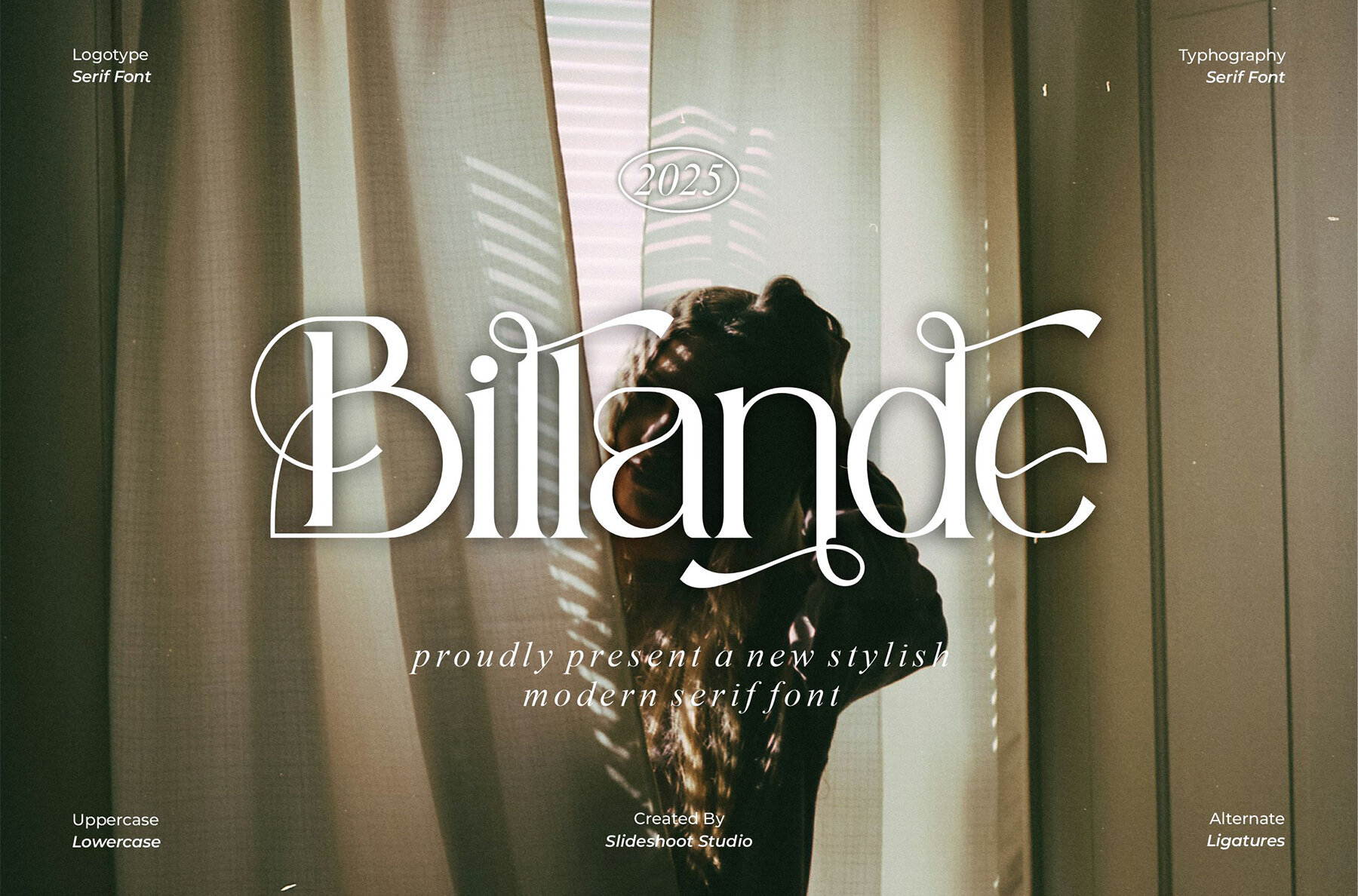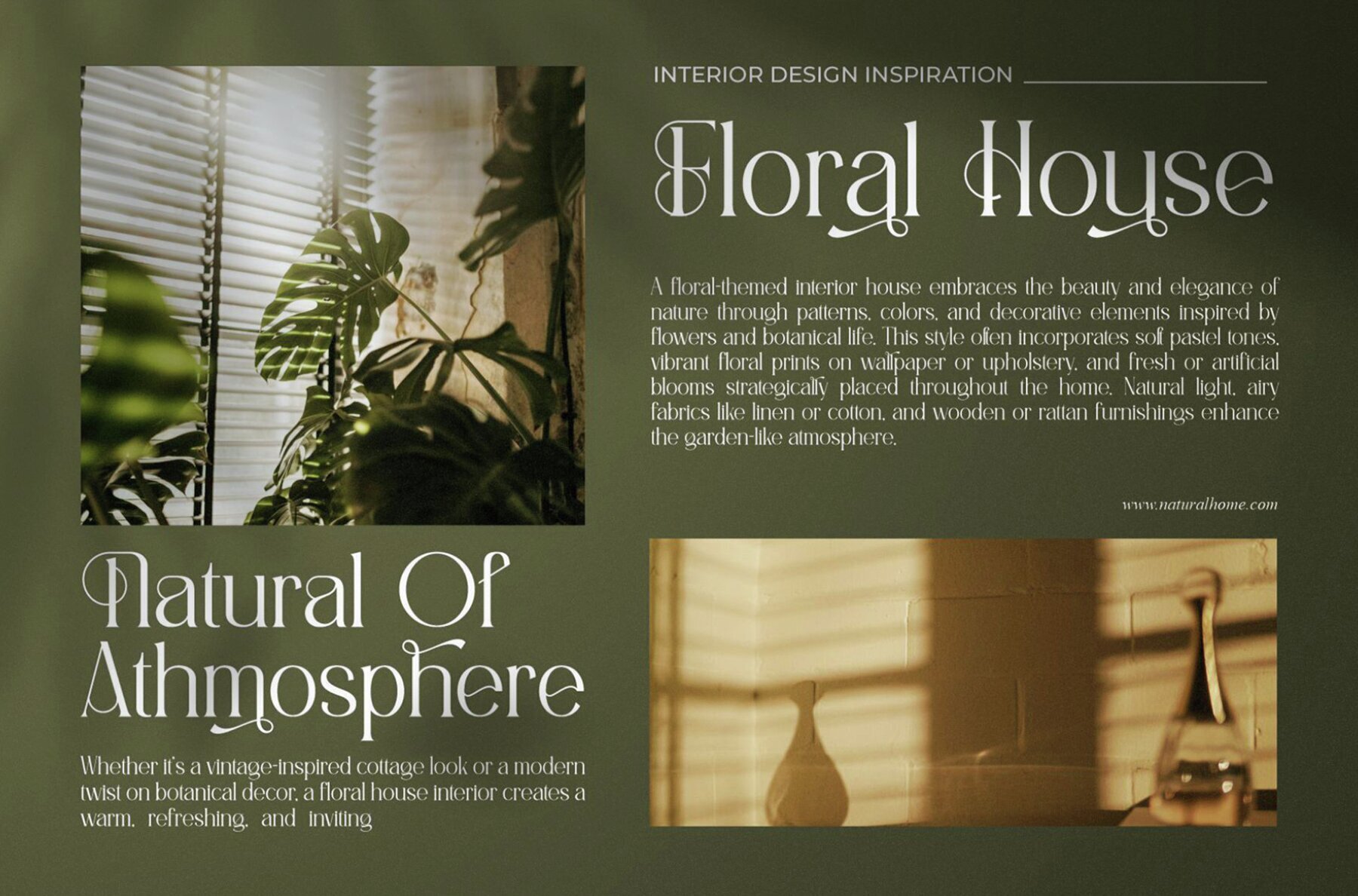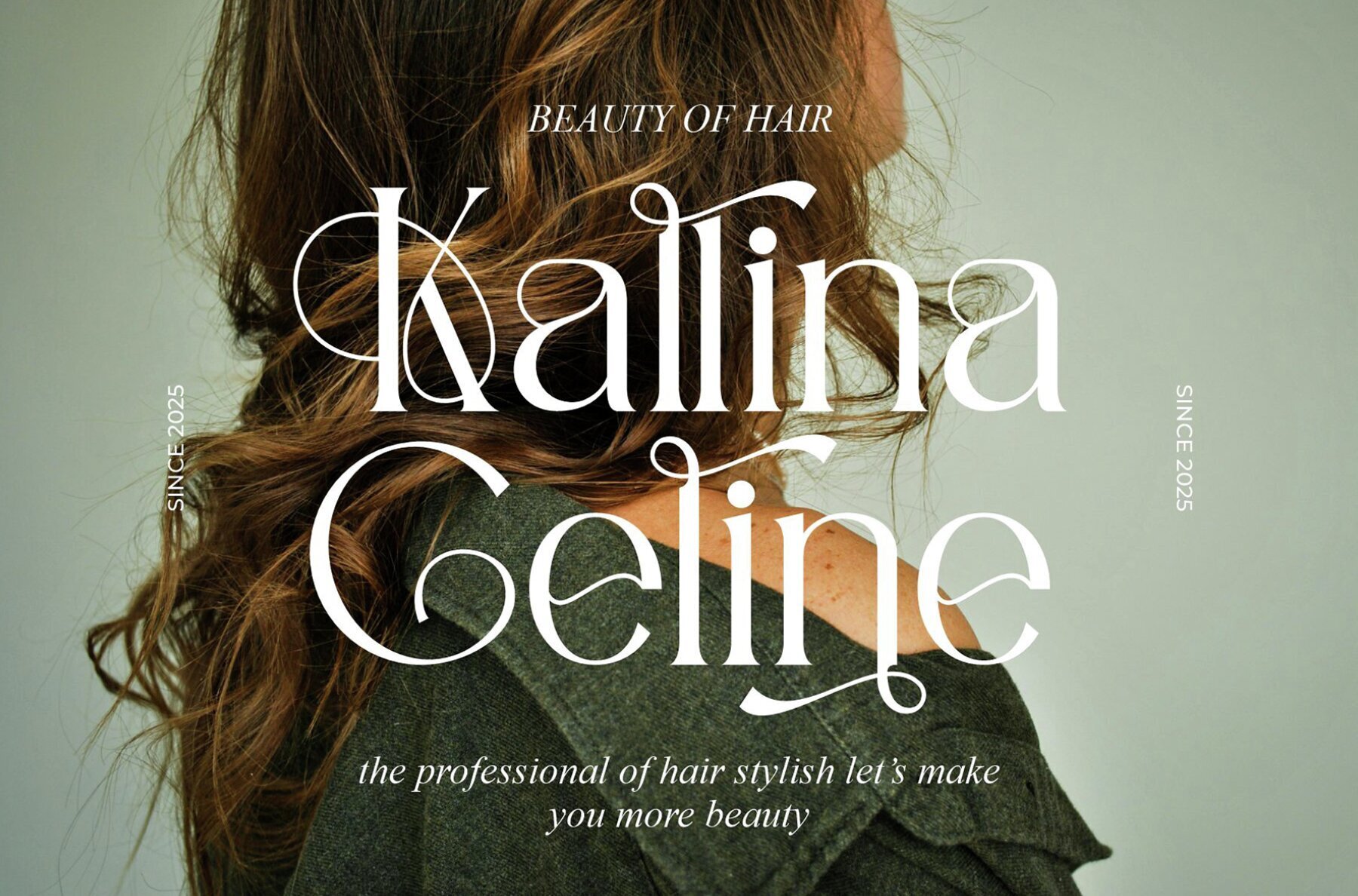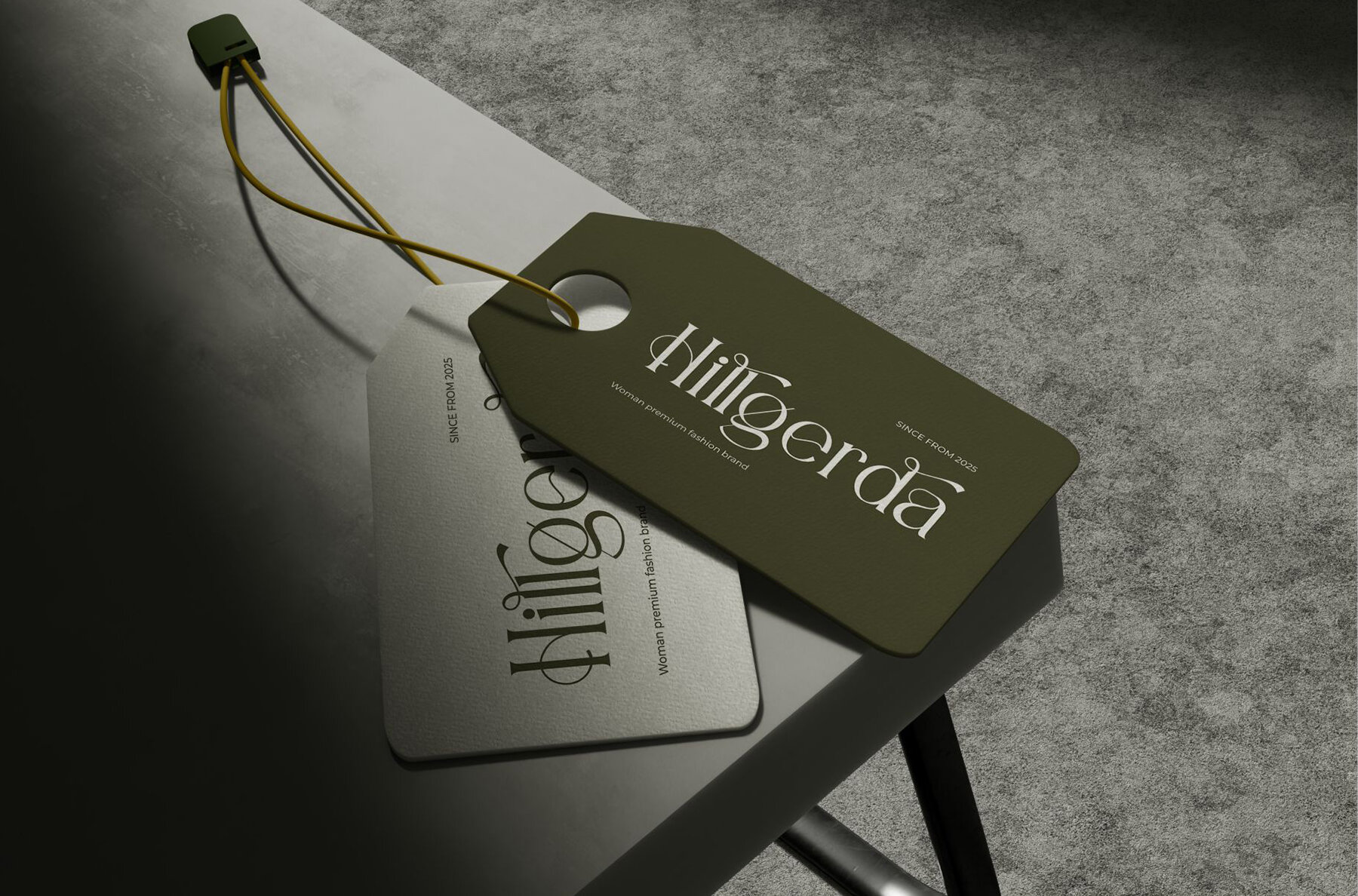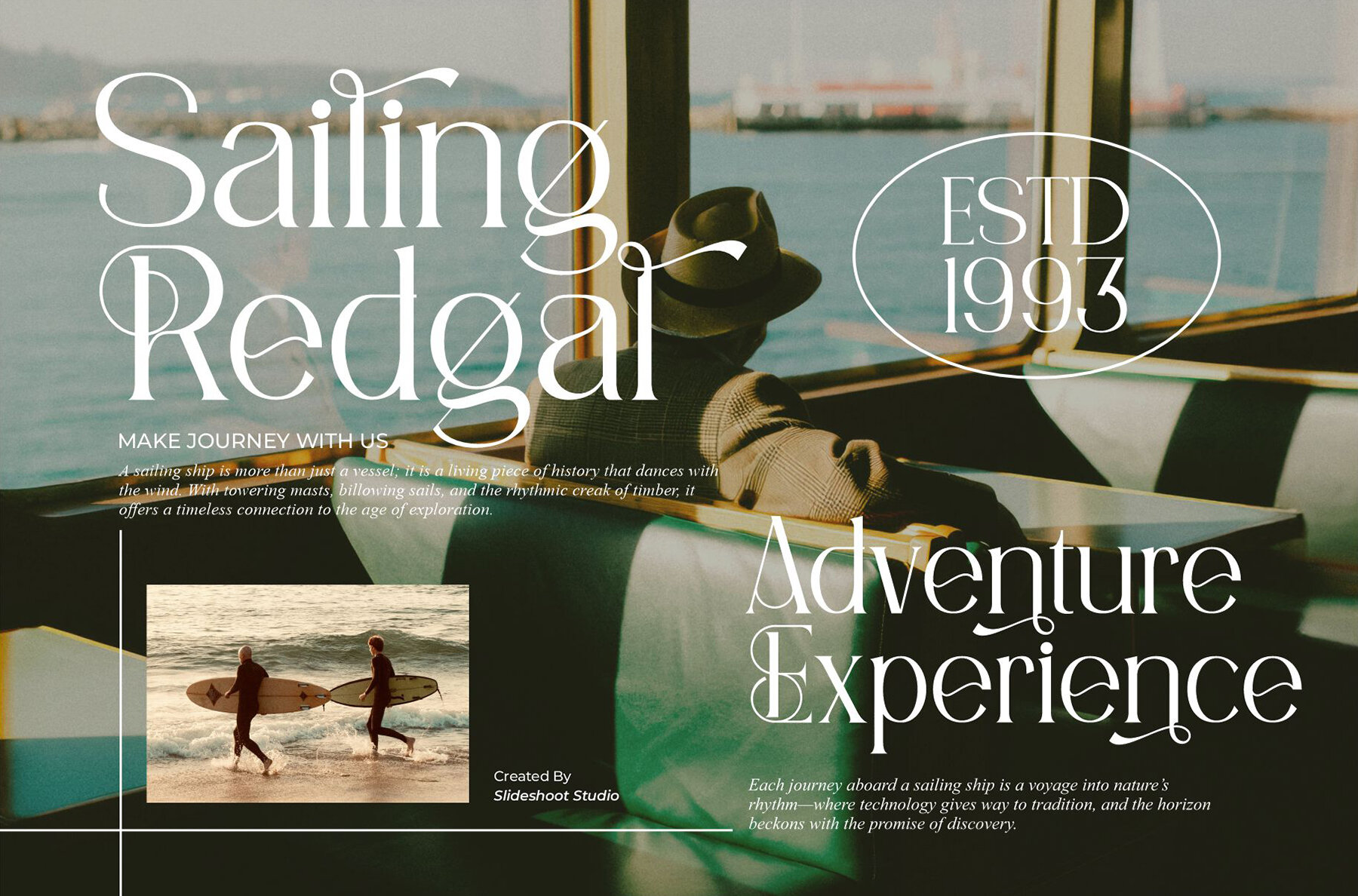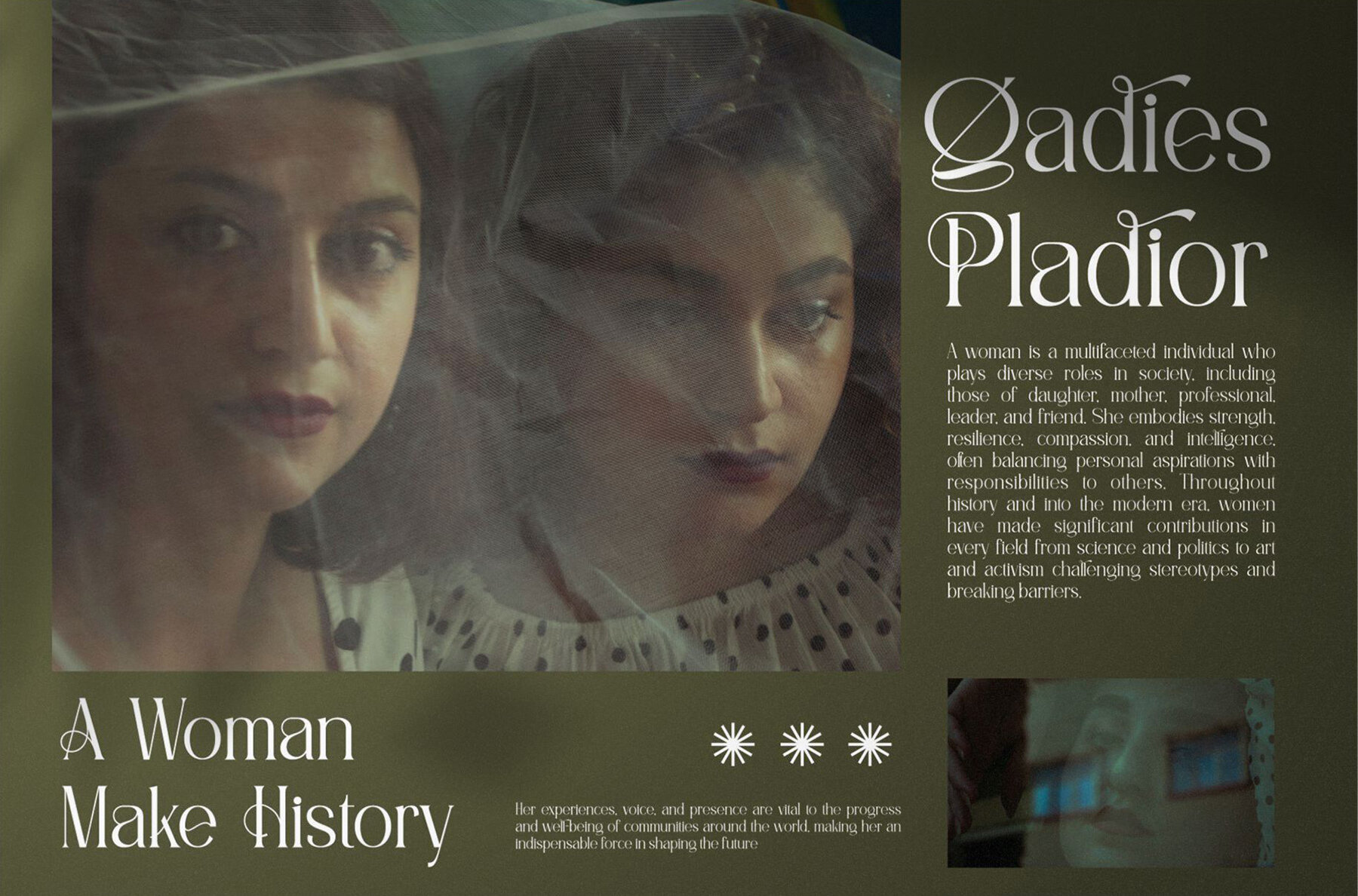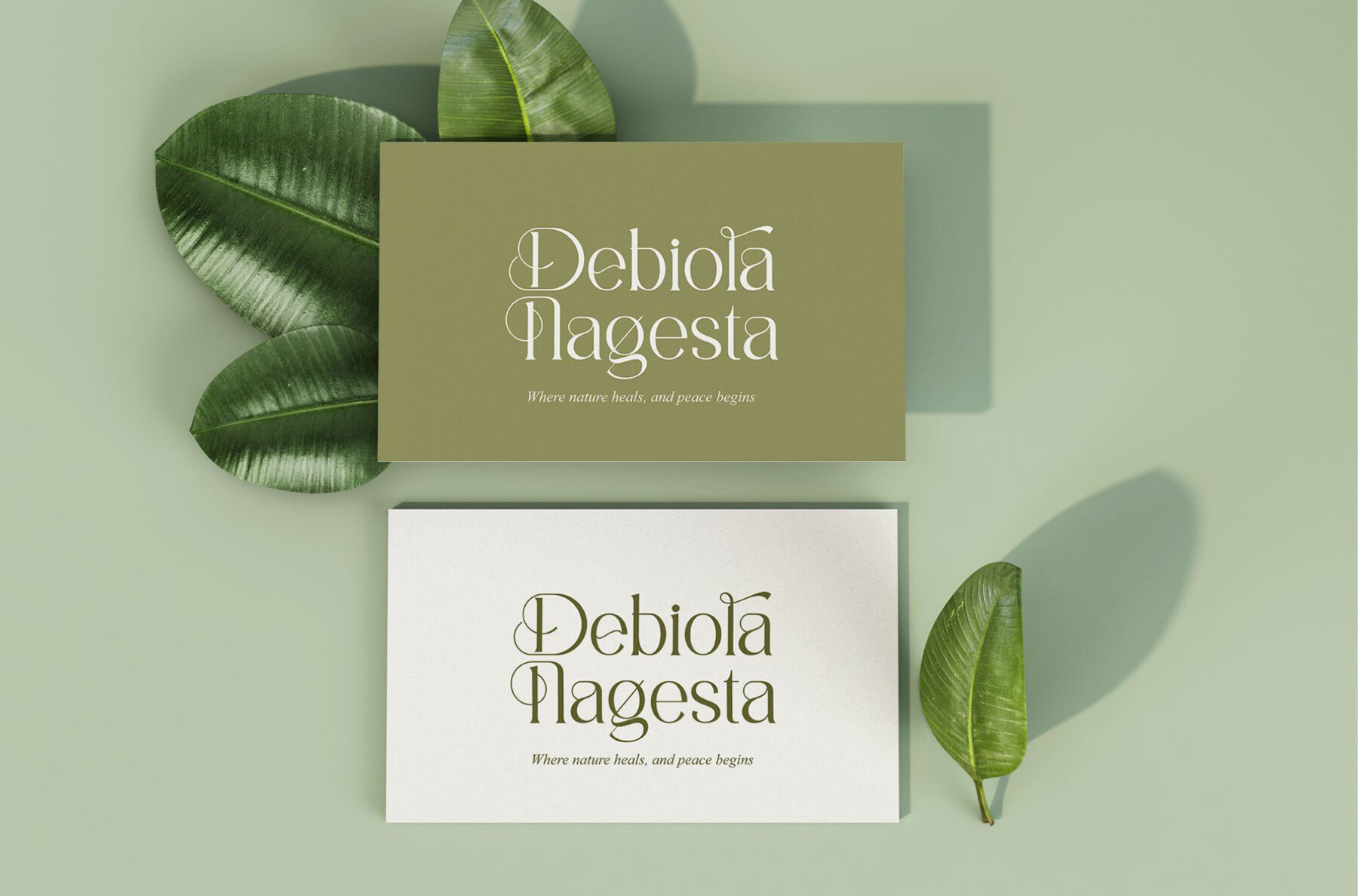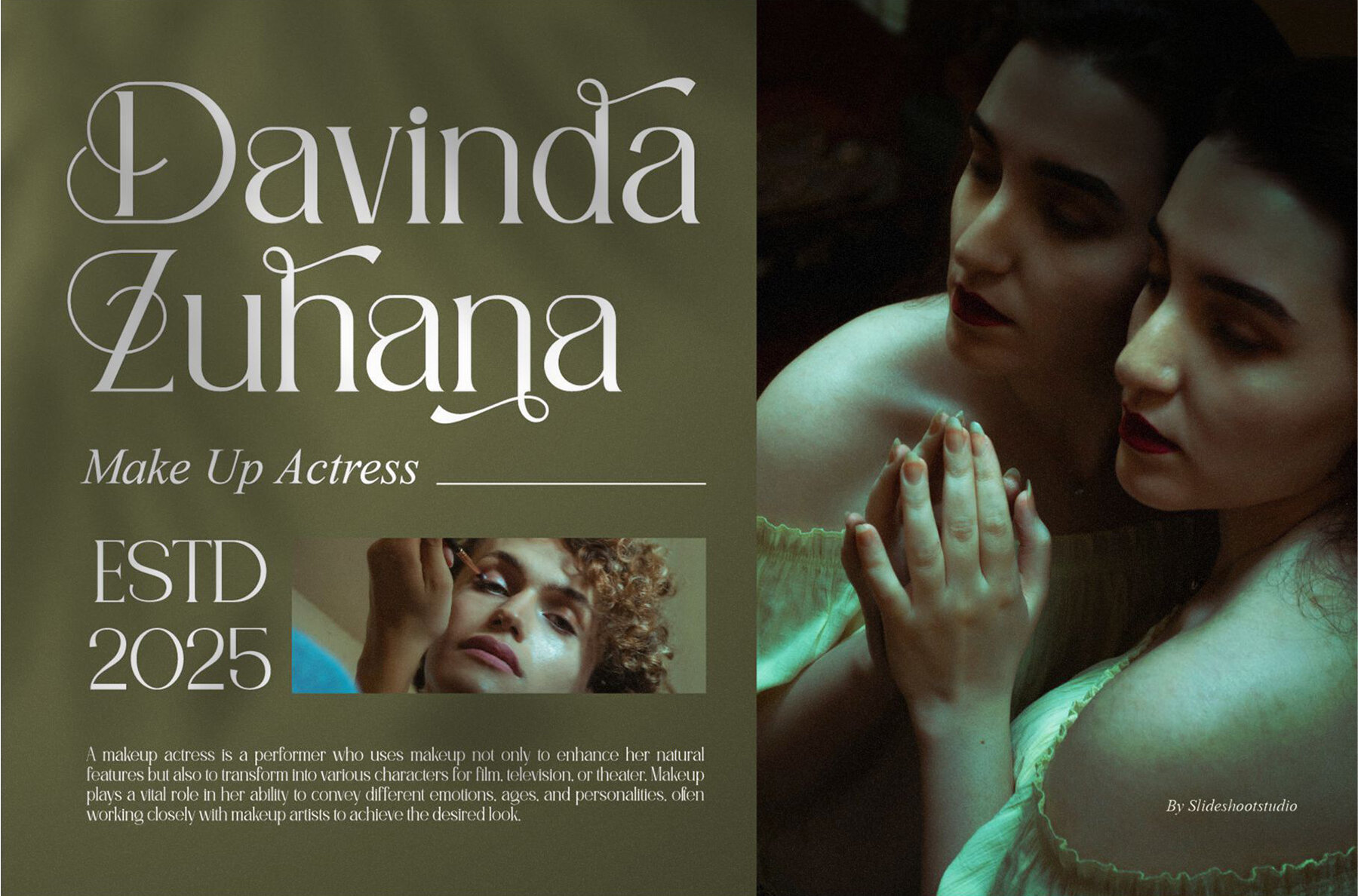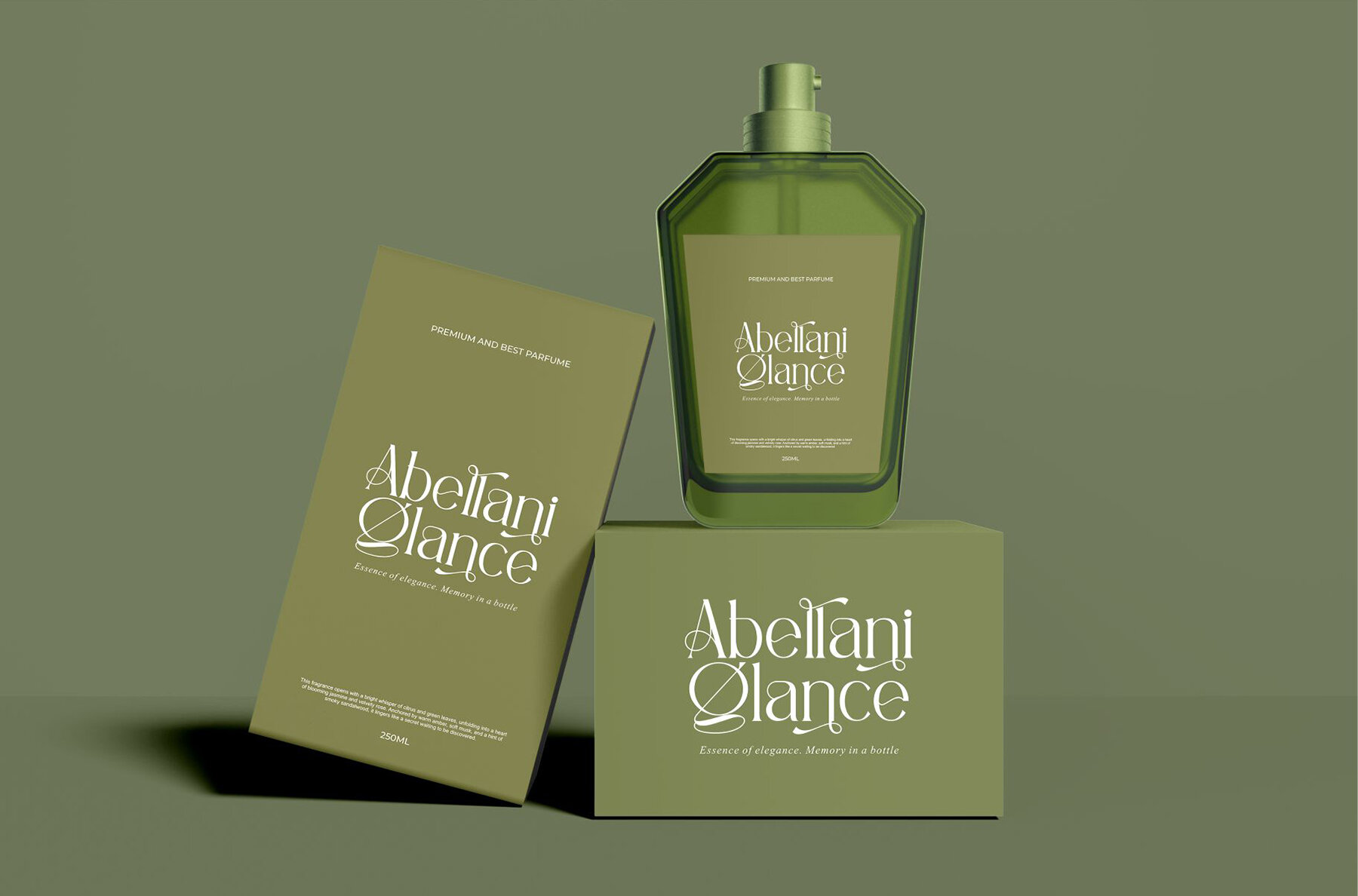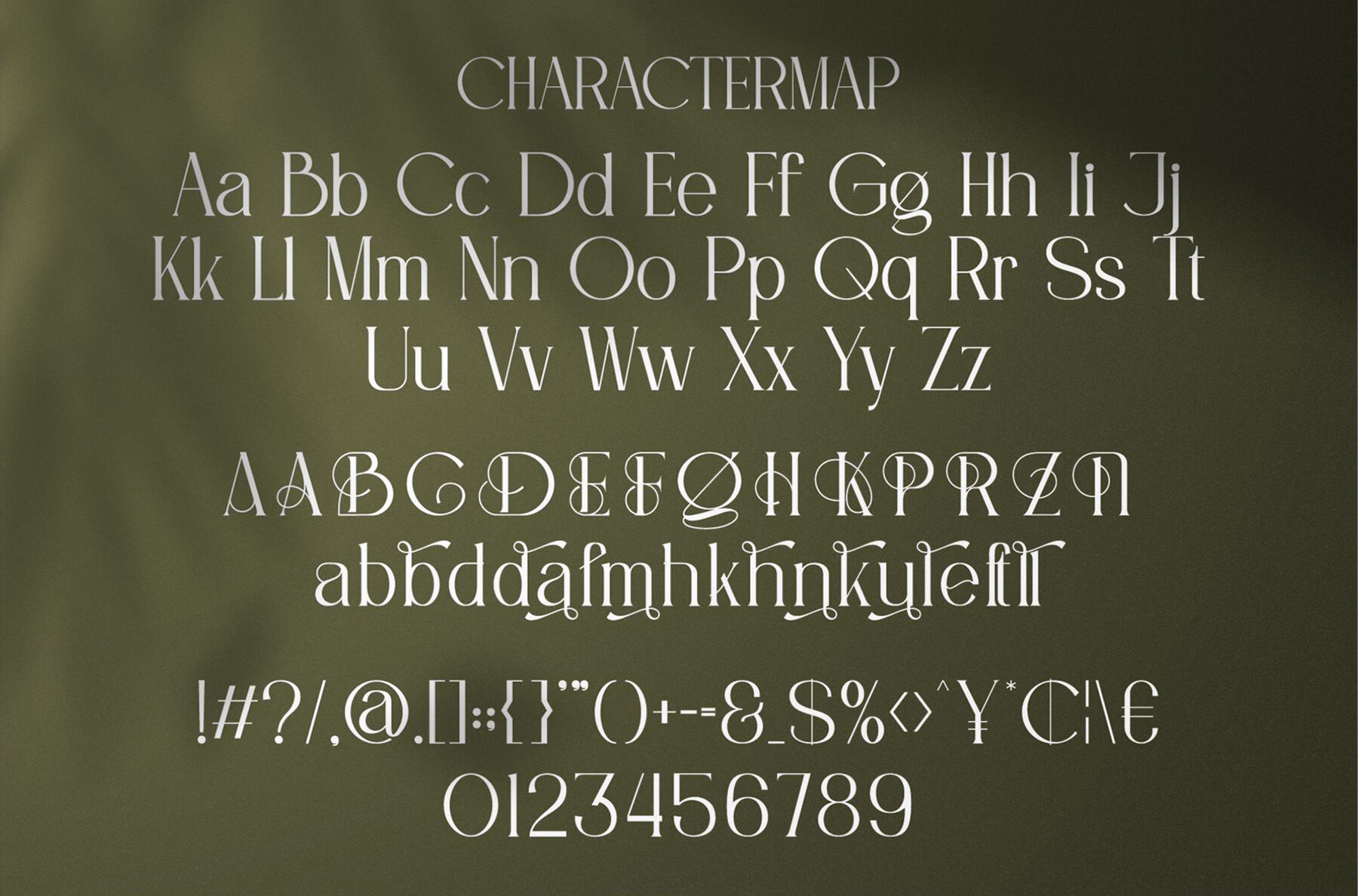
Billande Font
Billande
Billande exudes a modern charm with its elegant and stylish serif design. Its unique character makes it a distinctive choice for a wide range of creative projects. Whether you're crafting invitation cards, designing company logos, or creating movie titles, Billande provides a sophisticated touch. This versatile font is also ideal for business cards, book titles, and brand identities.Explore Billande: A Modern Serif Delight